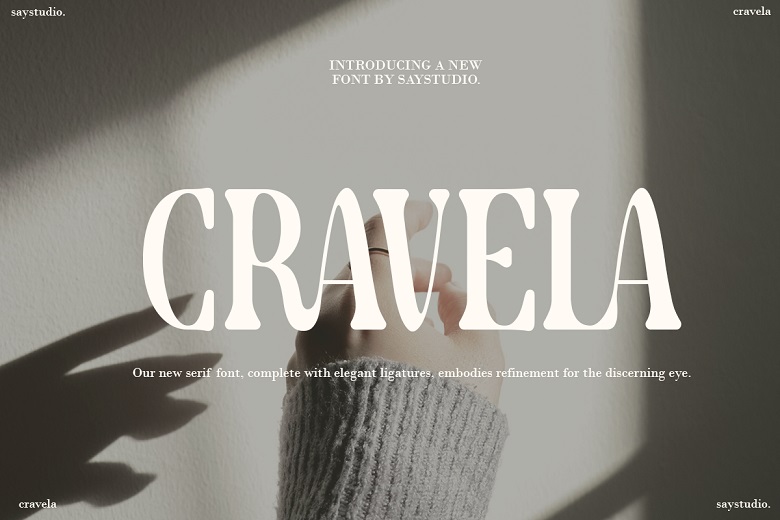
Cravela Font
Cravela is a modern serif font, which will ideally suit those who like staying at home. Great for your next graphic design and can be printed on a large number of pieces of different size. Comes with two variations: Two fonts: Regular & Italic. Thus, Cravela is universal and should not be left out in your font library.
It is the best font for your branding and you can use it to design all the logos, wedding designs and any other form of commercial design. Essential to Cravela’s image are class and high fashion and it even has optional ligatures of the same. It is able to take luxury, classy and modern and put it all in one basket. Start designing straight away.
Cravela Serif Font